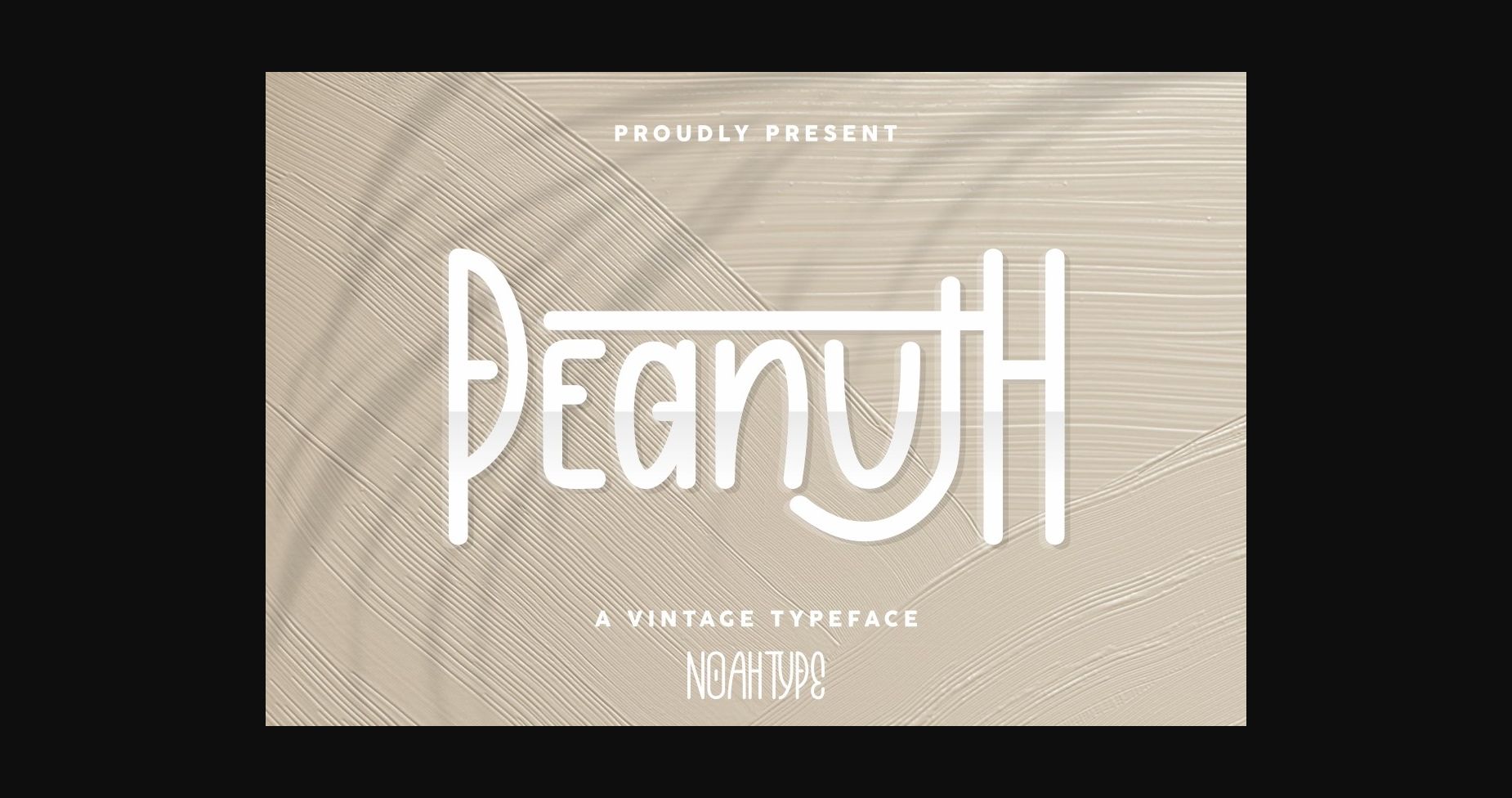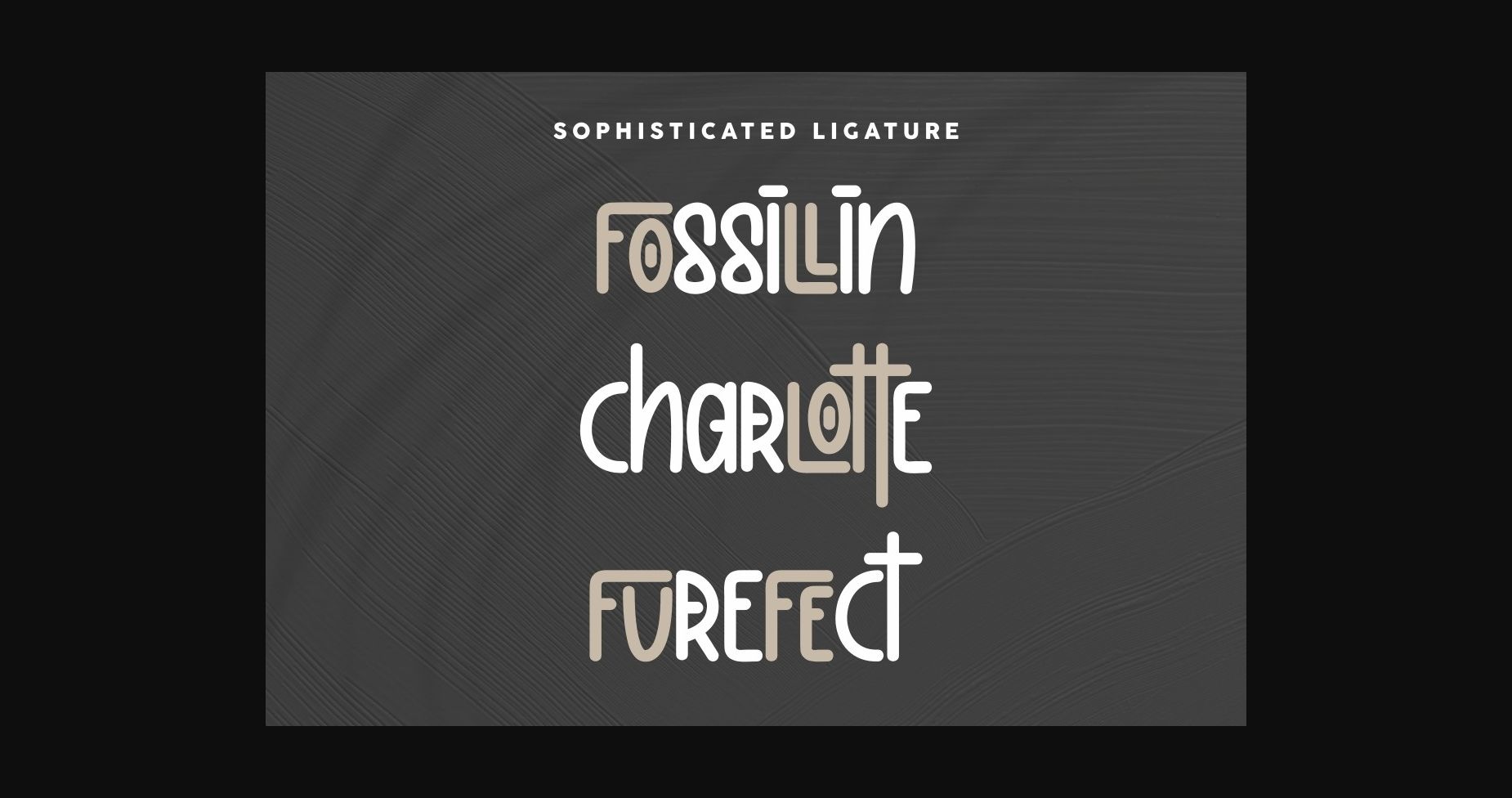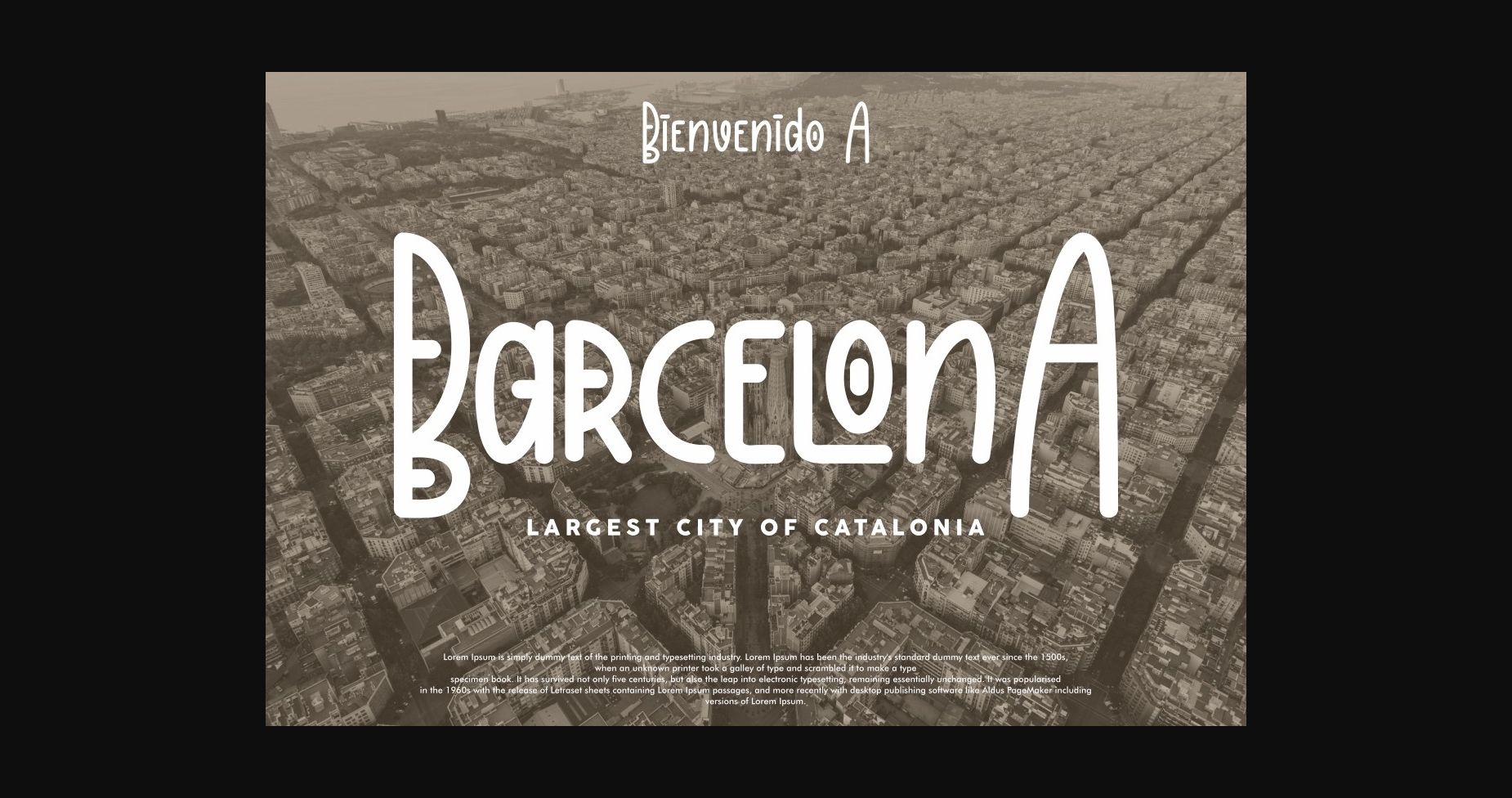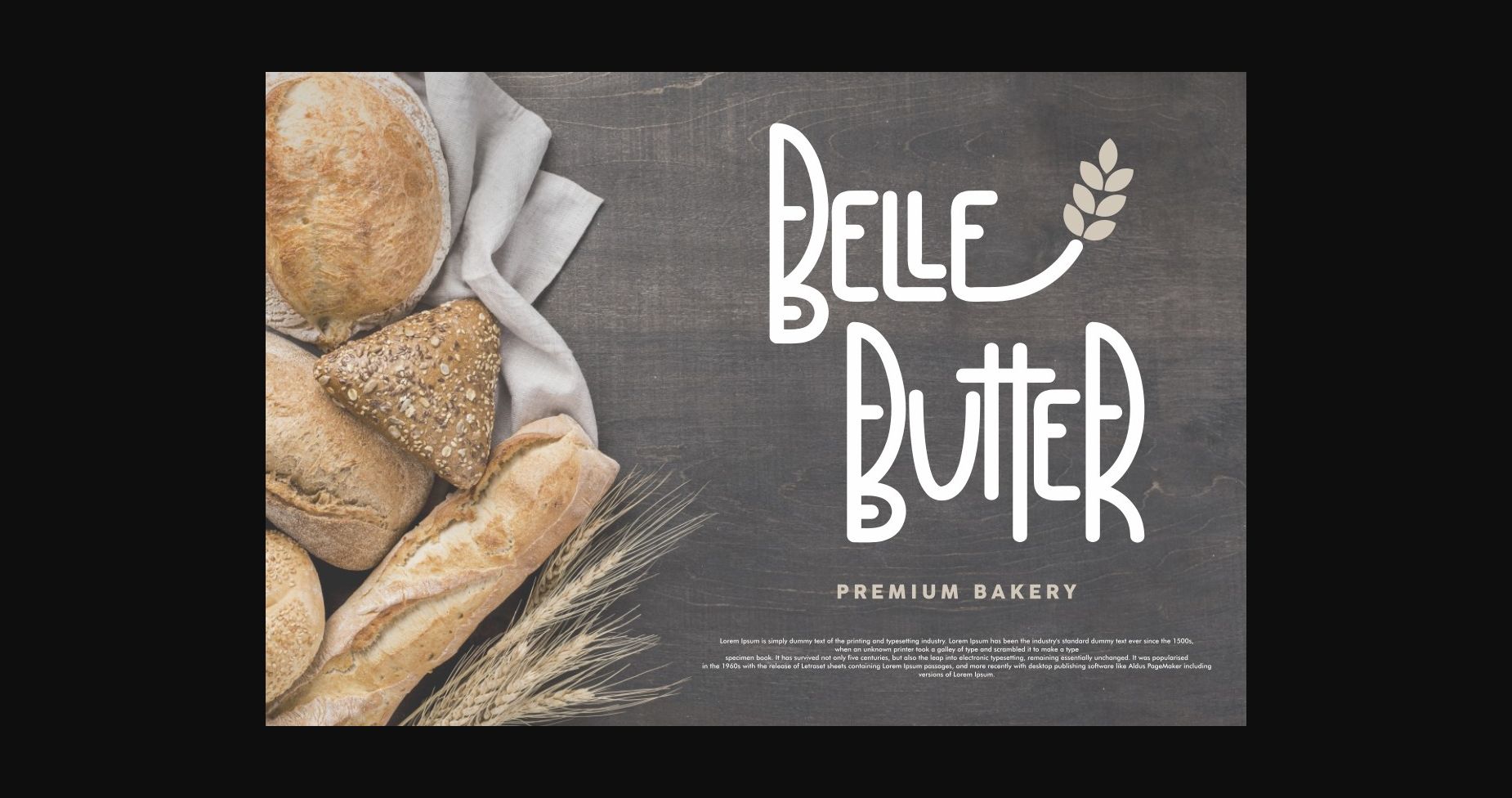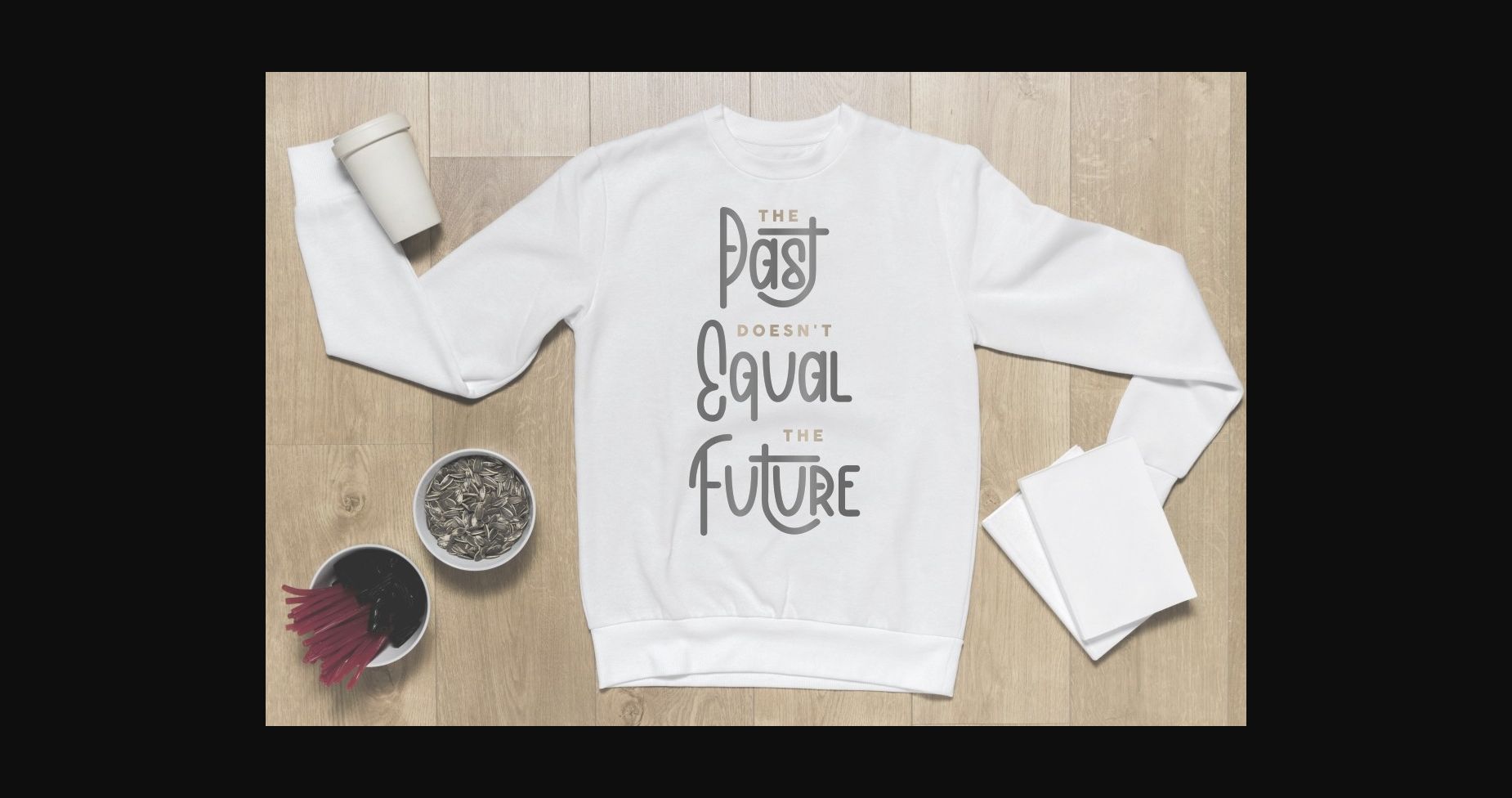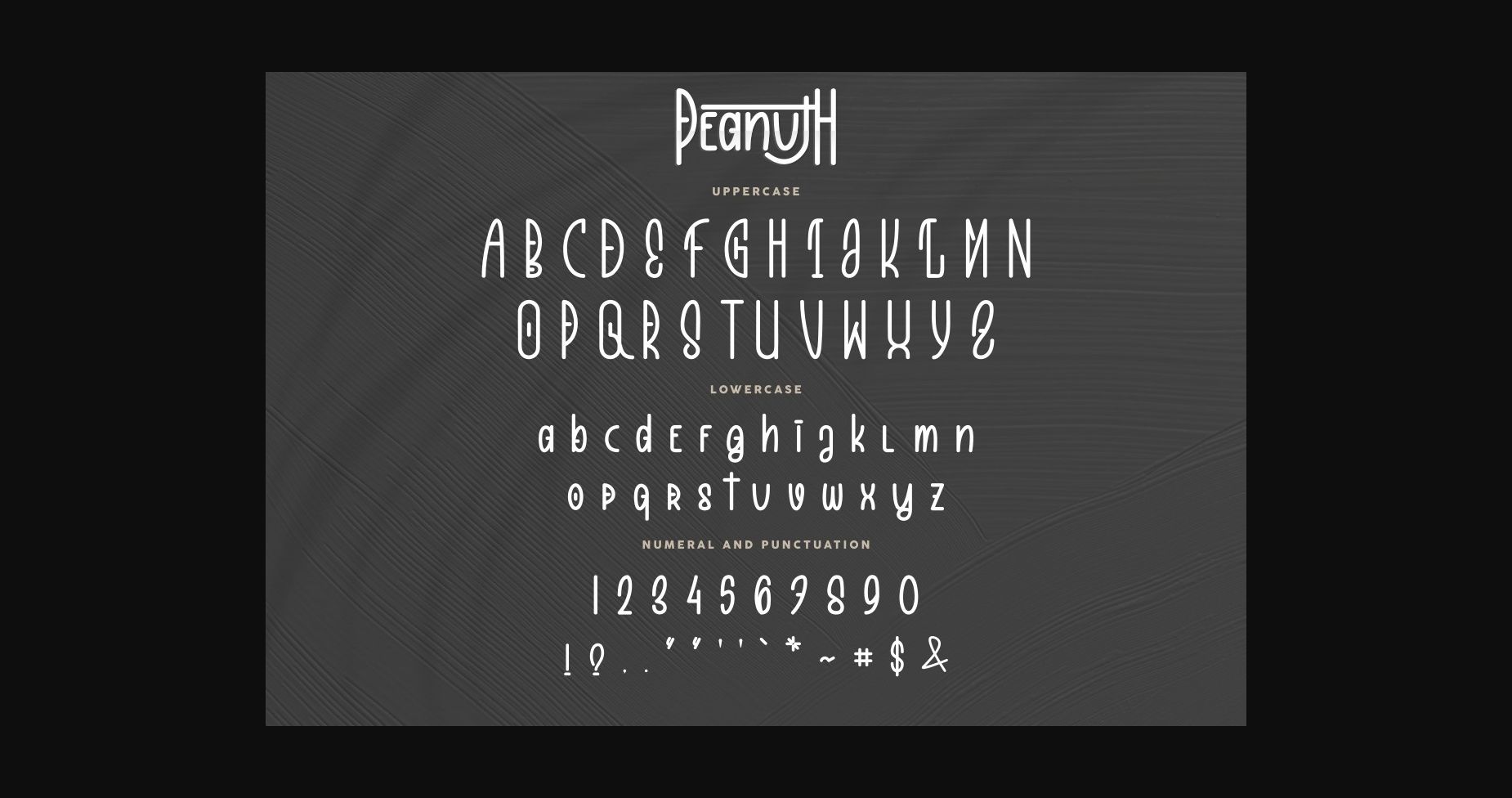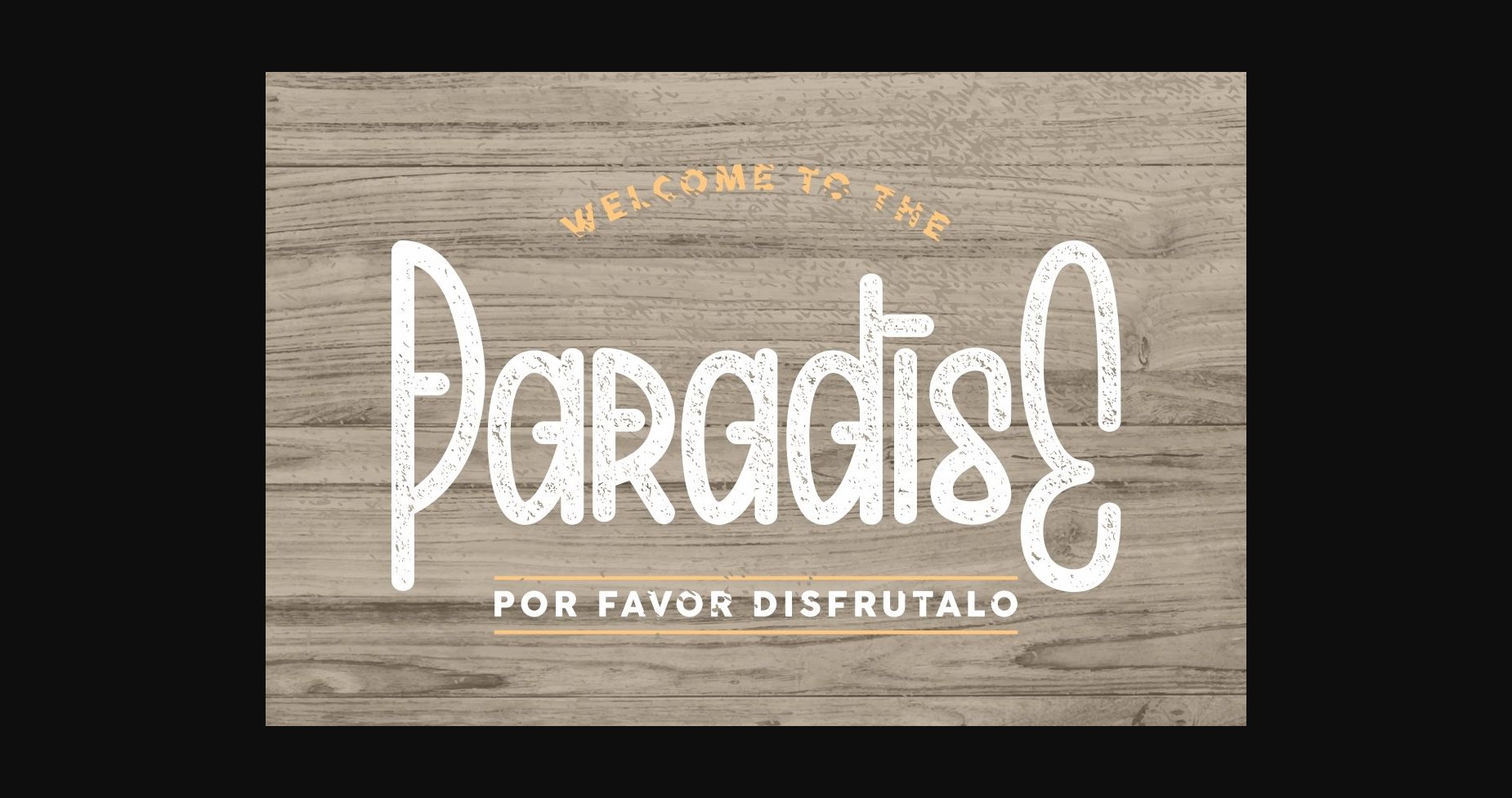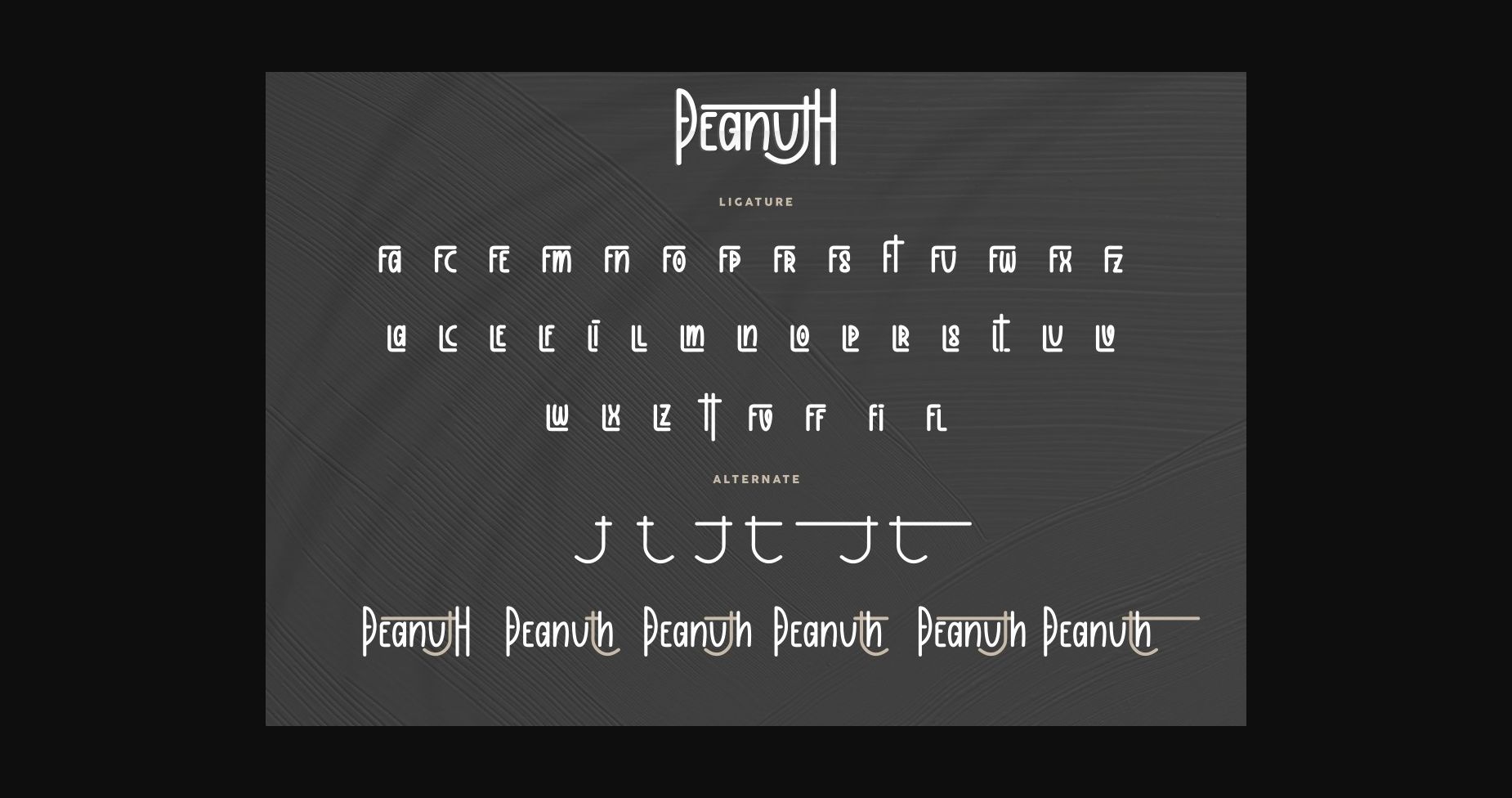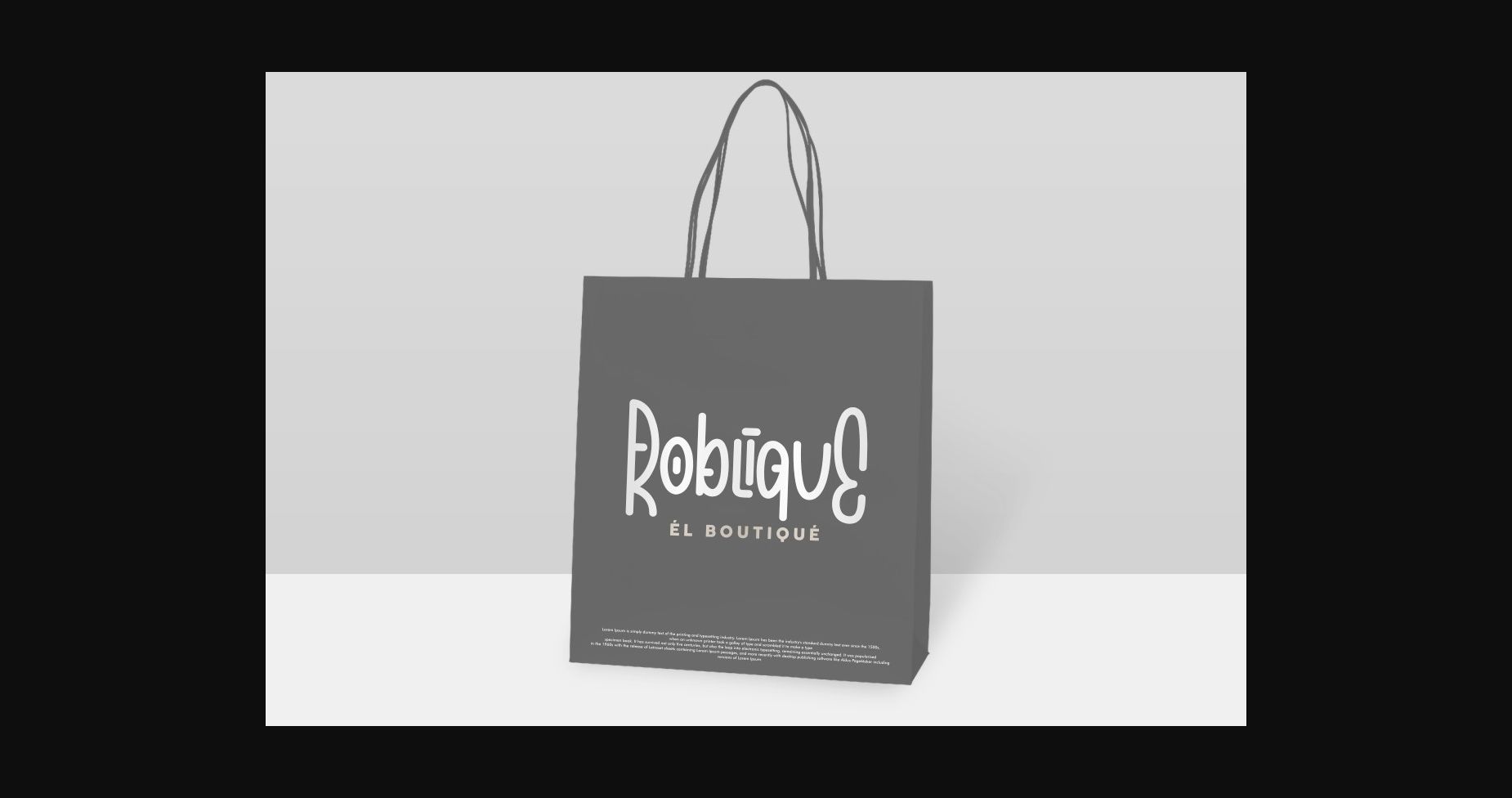
HomeSans Serif FontsPeanuth Font Sans Serif Fonts Peanuth Font FacebookXPinterestWhatsApp 1 of 11 ... Peanuth Font Poster 2... Peanuth Font Poster 3... Peanuth Font Poster 4... Peanuth Font Poster 5... Peanuth Font Poster 6... Peanuth Font Poster 7... Peanuth Font Poster 8... Peanuth Font Poster 9... Peanuth Font Poster 10... Peanuth Font Poster 11... About Peanuth Font Peanuth is a vintage styled sans serif font. It is PUA encoded which means you can access all of the glyphs and swashes with ease! Add it confidently to your favorite creations and let yourself be amazed by the outcome generated. DOWNLOAD NOW People also explored Creature Font Hello Onyx Font Broke Kerong Font Pantomime Monogram Horror Wing Font Checkout Farmhouse Ecology Font Butter and Coffee Font Valley – Beauty Handwritten Font 265 0 TagsPeanuthPeanuth Font Previous articleFondest FontNext articleChristmas Gangss Font LEAVE A REPLY Cancel reply Comment: Please enter your comment! Name:* Please enter your name here Email:* You have entered an incorrect email address! Please enter your email address here Website: Save my name, email, and website in this browser for the next time I comment. Personal Use Free Airmole Personal Use Free Read more about this font Equestrain Personal Use Free Read more about this font Wordan Personal Use Free Read more about this font Sea Gardens Personal Use Free Read more about this font BLOG 5 Fonts That Will Dominate Design Trends in 2026 5 Fonts for 2026 That Will Dominate Design Trends Typography plays a critical role in visual communication, and as we look ahead to 2026, it’s... Where to Buy American Fonts Online in 2024 Fonts That Capture the Spirit of New York City Transform Your Website: Elevate Your Typography with 7 Best Web Font Generators